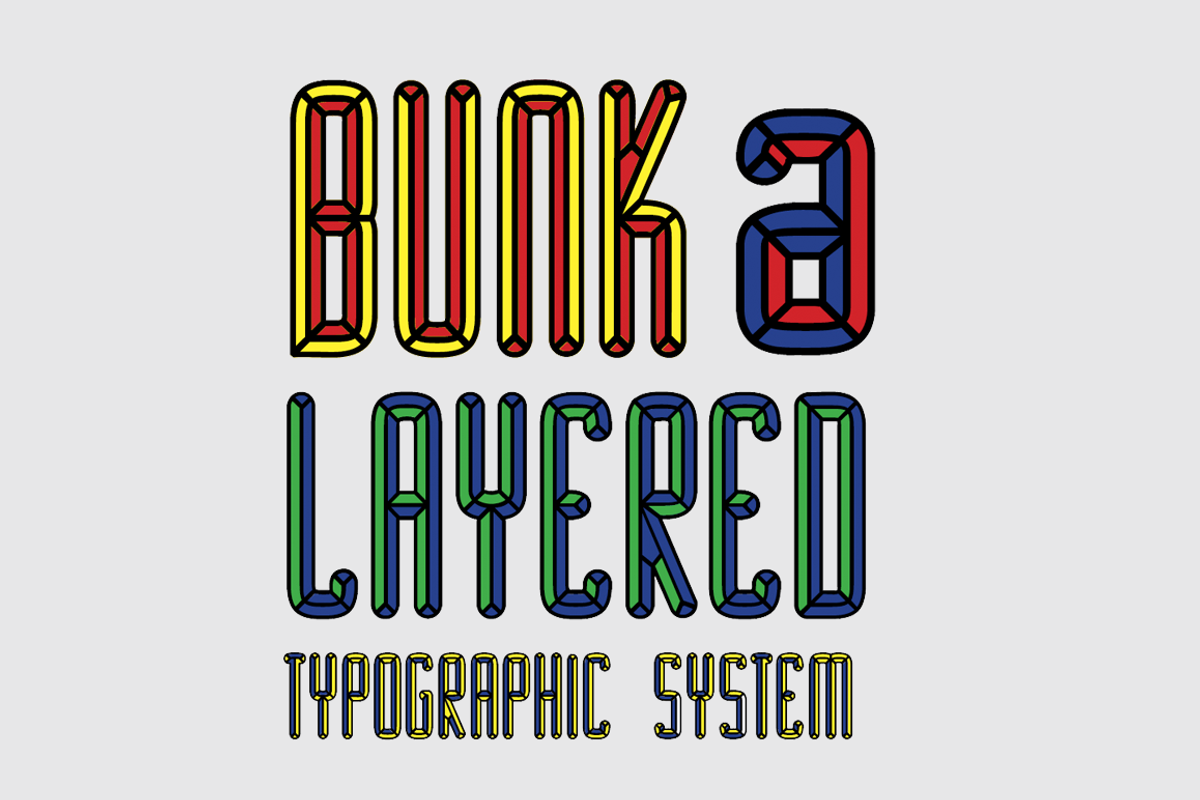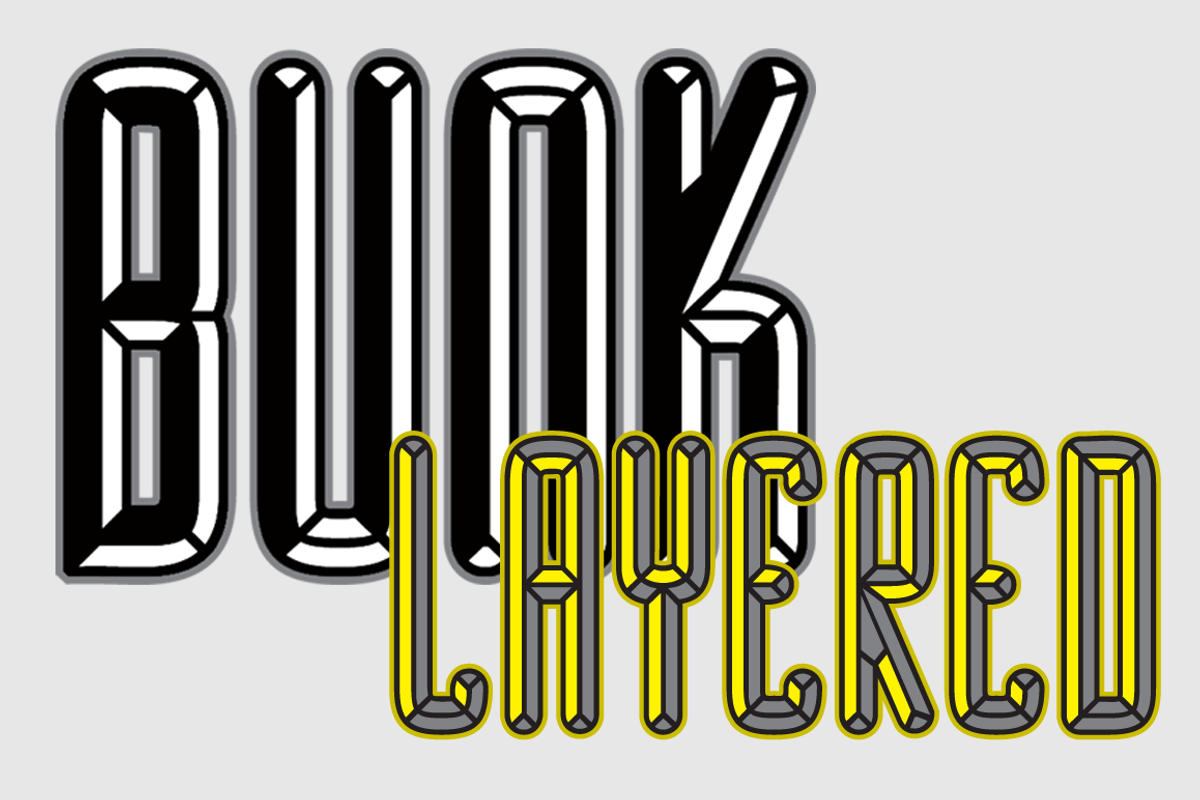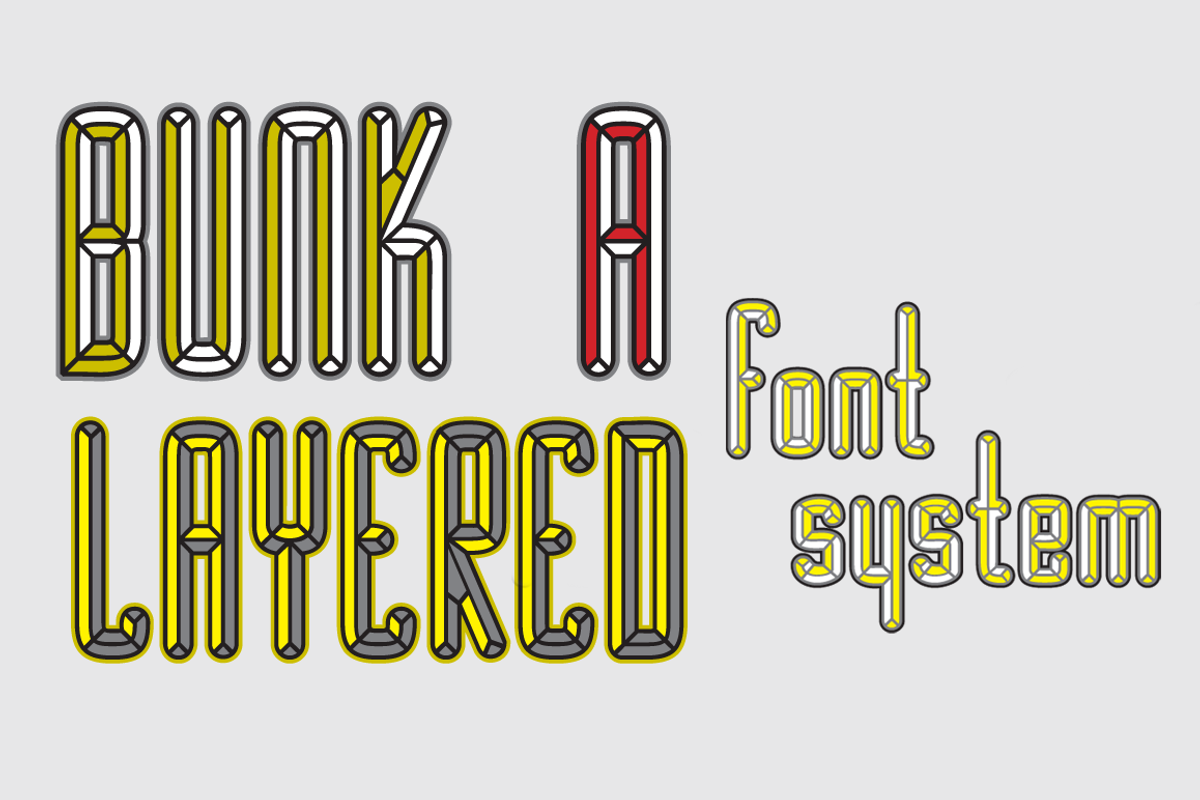
BUNK Layer Kit Font Pack $PECIAL$$
BUNK Layer Kit Font Pack $PECIAL$$ by AdultHumanType is a font selected for branding, posters, packaging, typography.
- Each font contains the same metrics, so when your title is set, copy and paste-in-place to create layers of different weights/styles to buil
- Unlike other Layered Fonts out there, BUNK has upper case and lower case as well as currency symbols and lots of foreign characters too.
- BUNK Base 1
- BUNK Base 2
- BUNK Shade 1
- BUNK Shade 2
- BUNK Shade 3 Tips
- BUNK Shade 4 IN
- BUNK Shade 5 OUT
BUNK Layer Kit Font Pack $PECIAL$$ by AdultHumanType fits naturally into Branding, posters, packaging, typography.